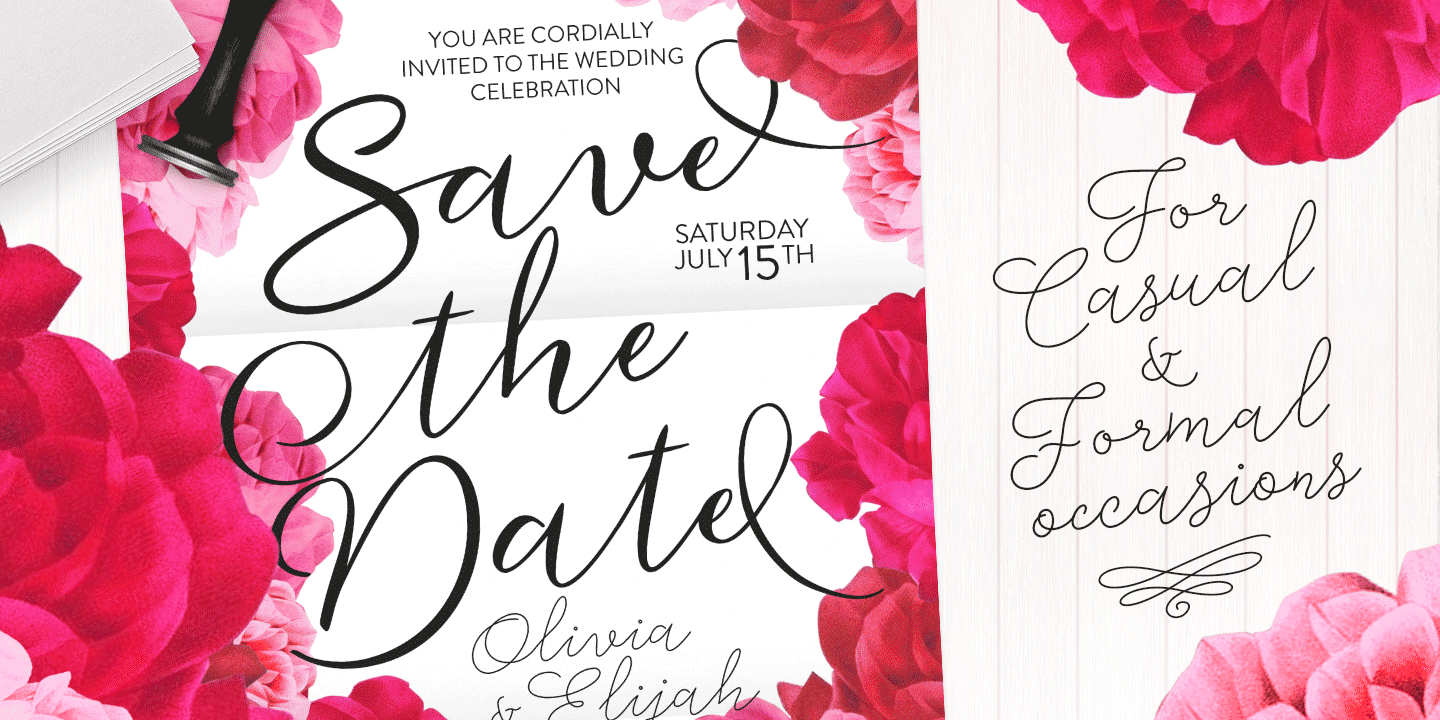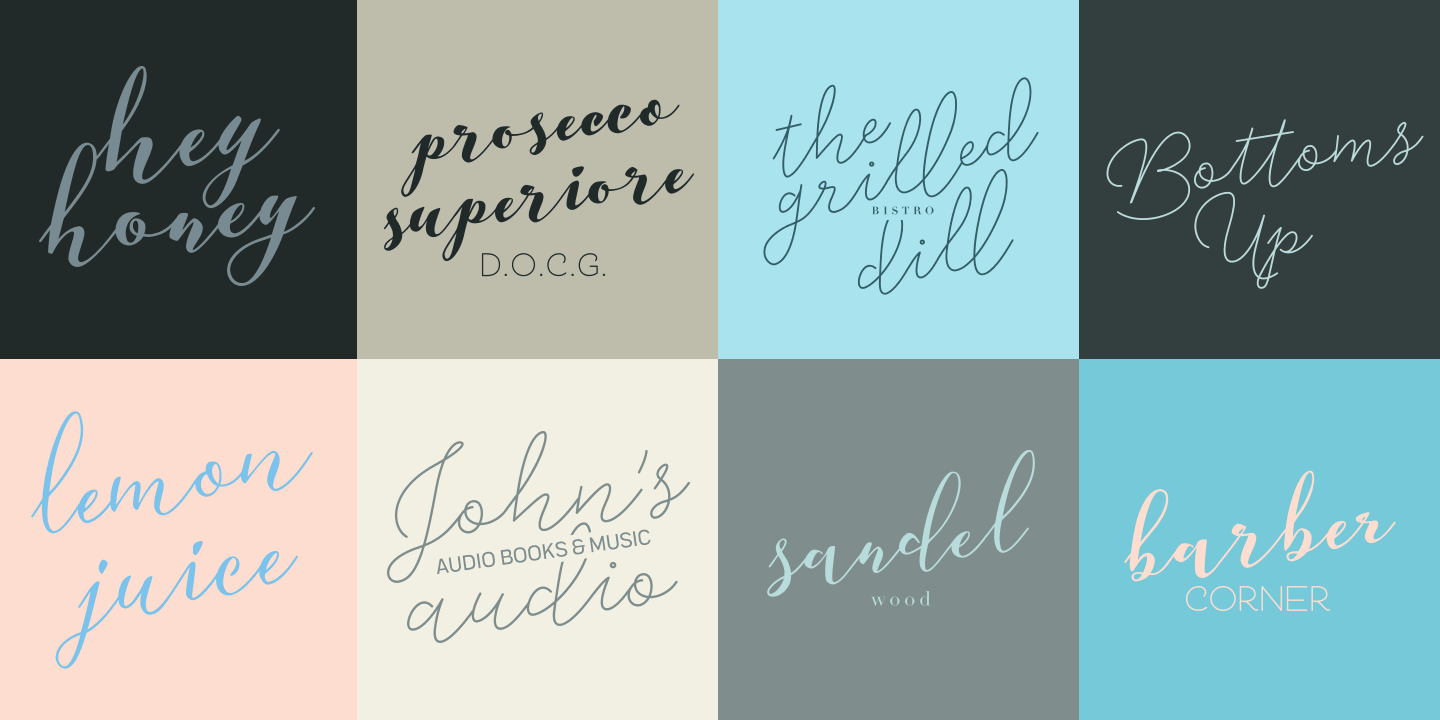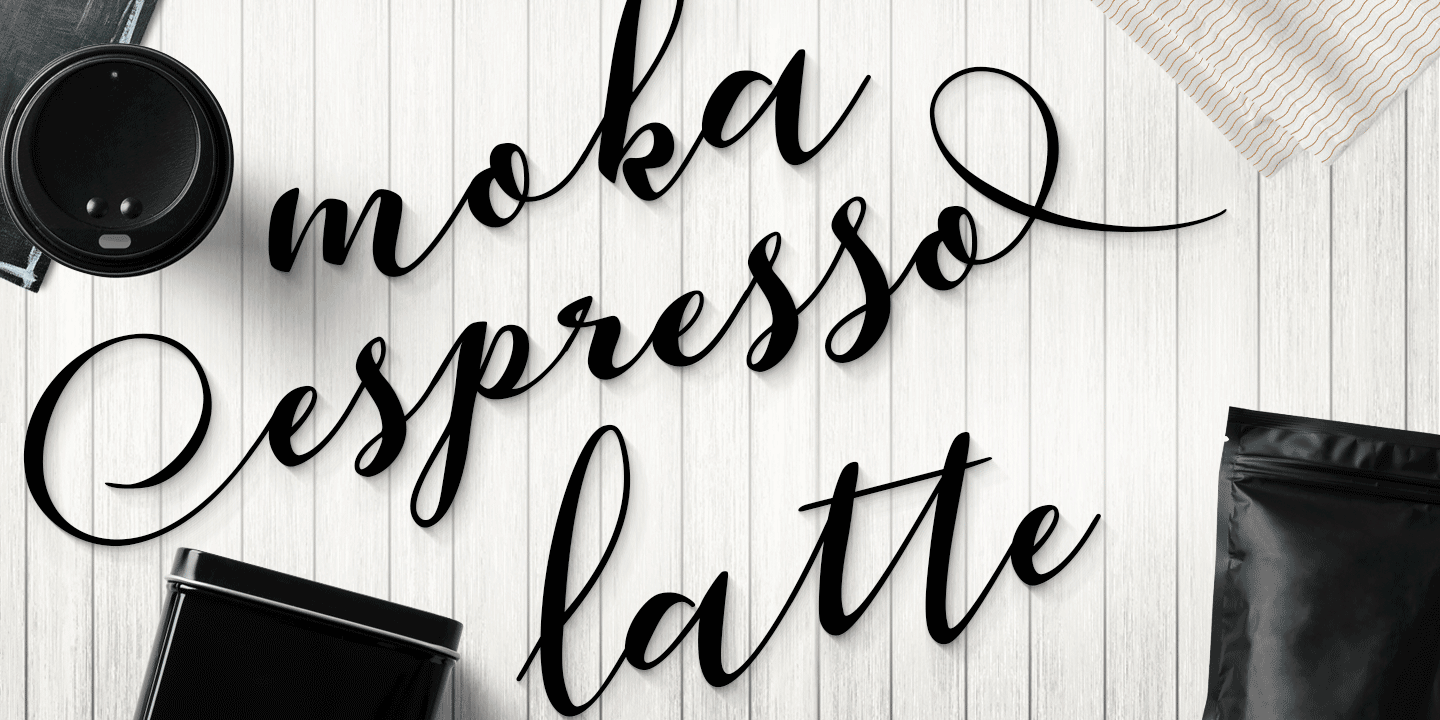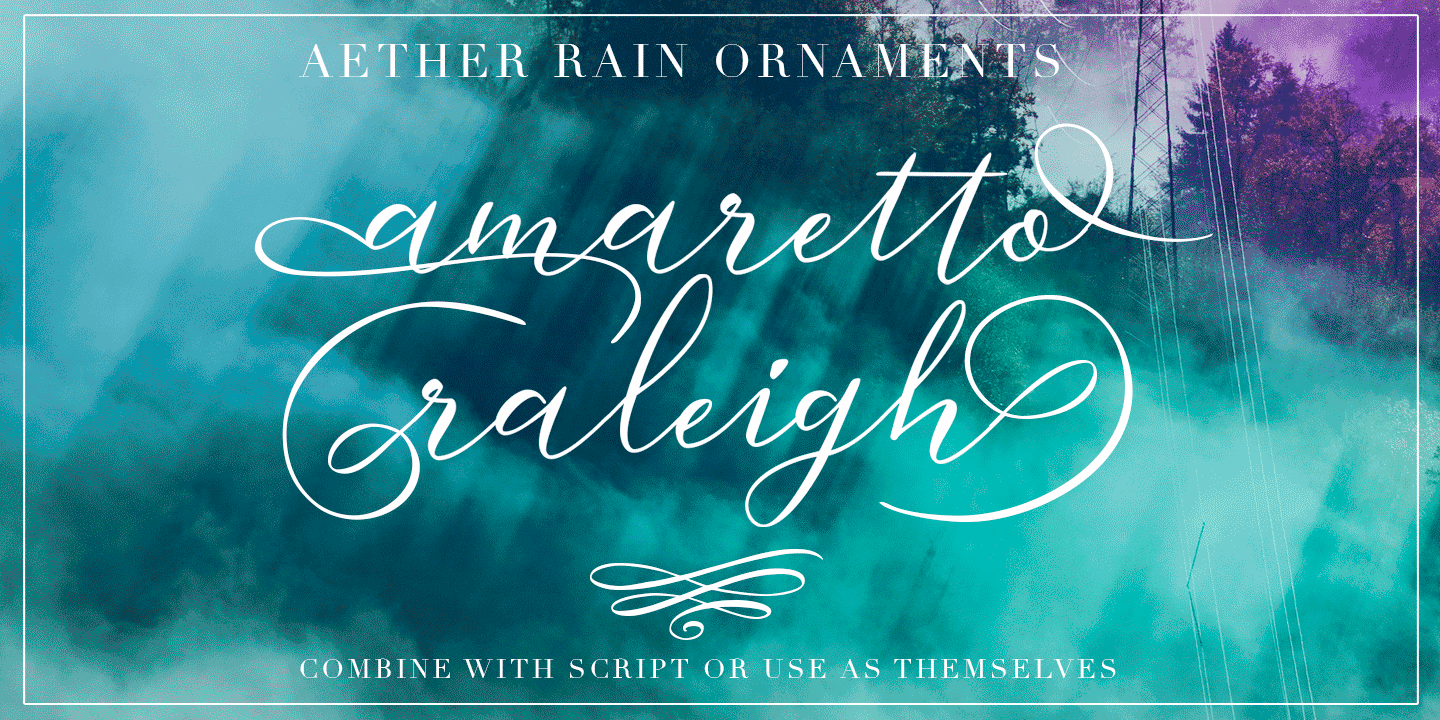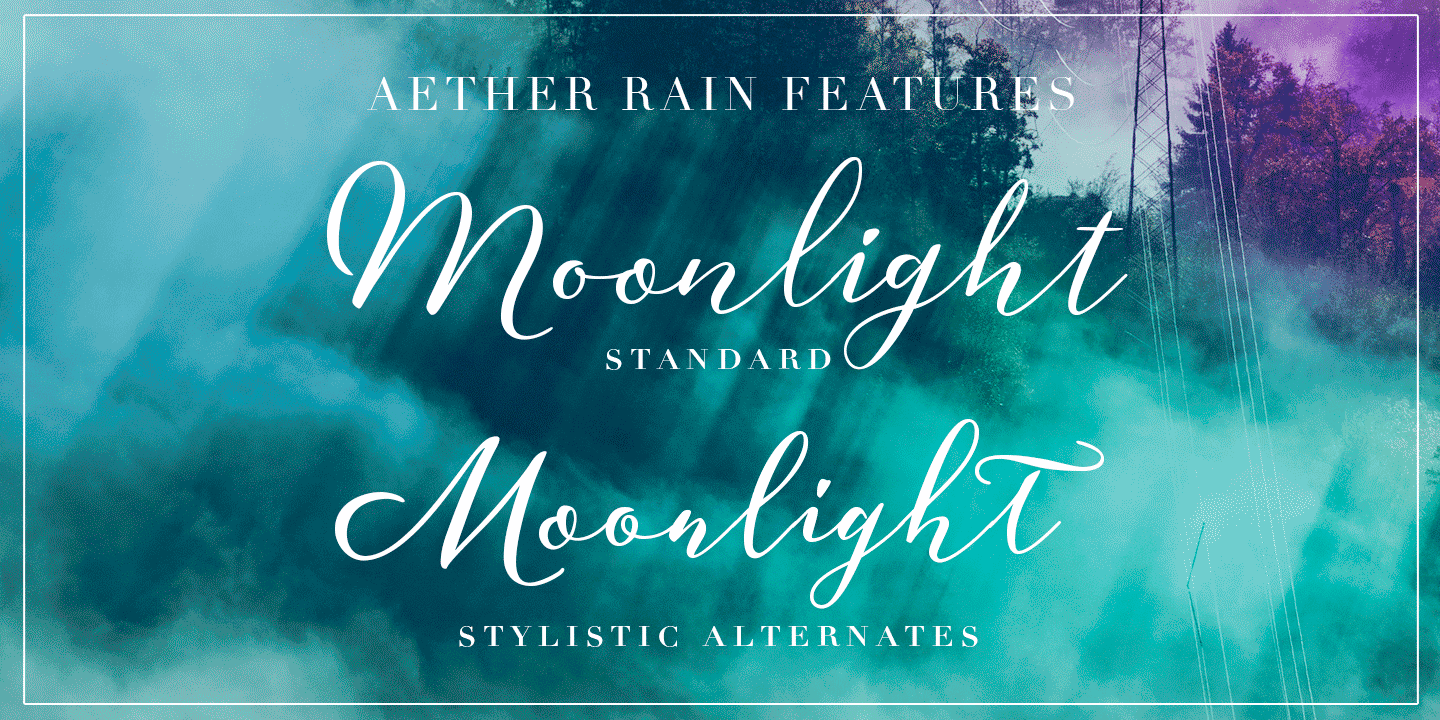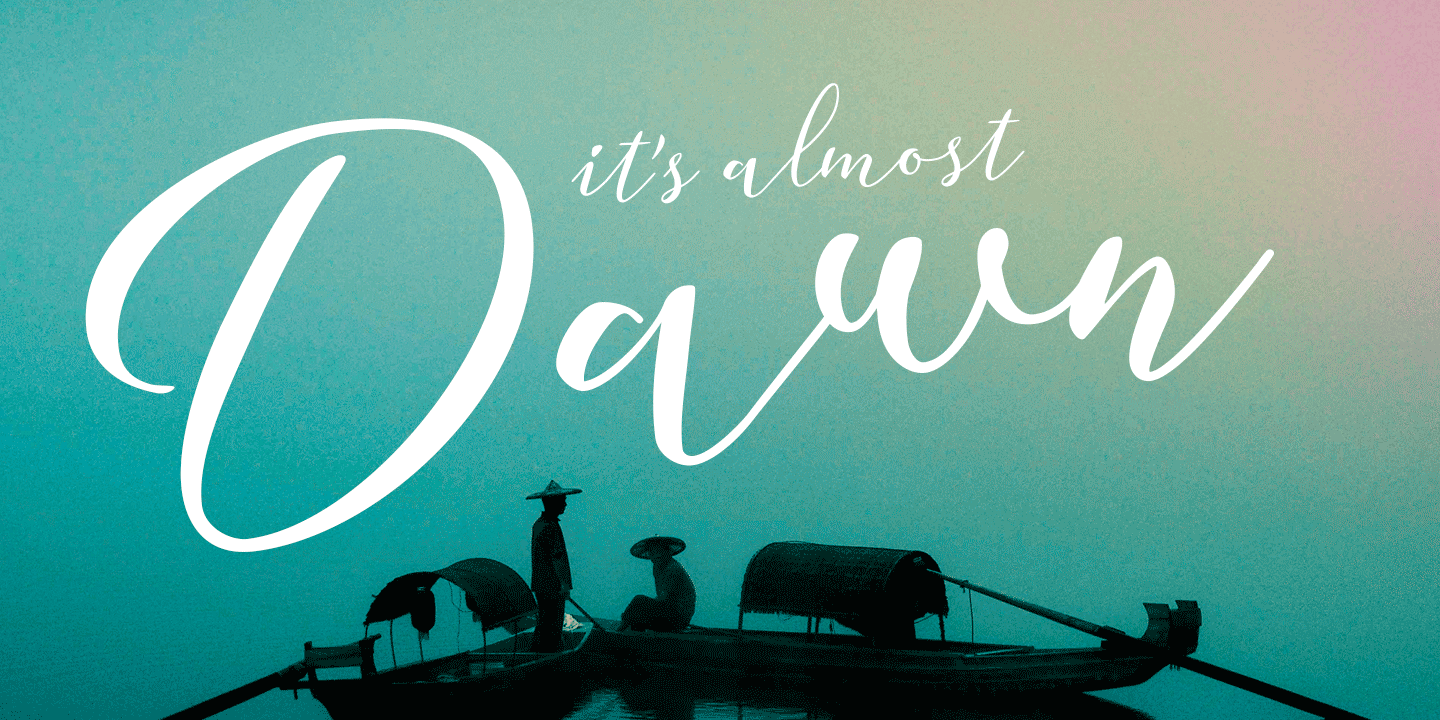
Aether Rain
About Aether Rain
Aether Rain is an elegant modern script family that fits both casual and formal use. Aether Rain includes basic latin alphabets, numerals and punctuation. Aether Rain is equipped with Standard Ligatures that work automatically and it also has Stylistic…